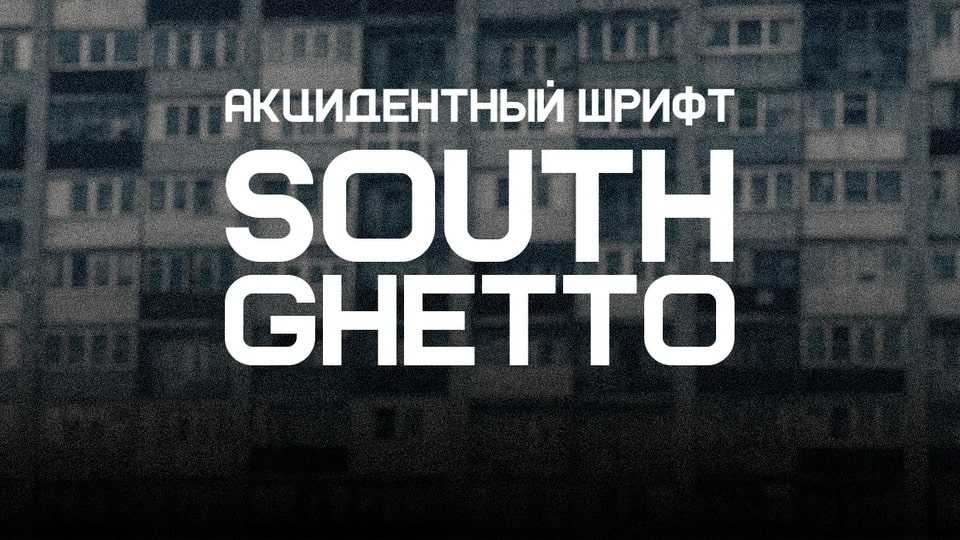
Download South Ghetto font, a display typeface inspired by the Kupchino district of Saint Petersburg. The concept reflects the district’s architecture, rough concrete, straight lines, and a feeling of structural simplicity.